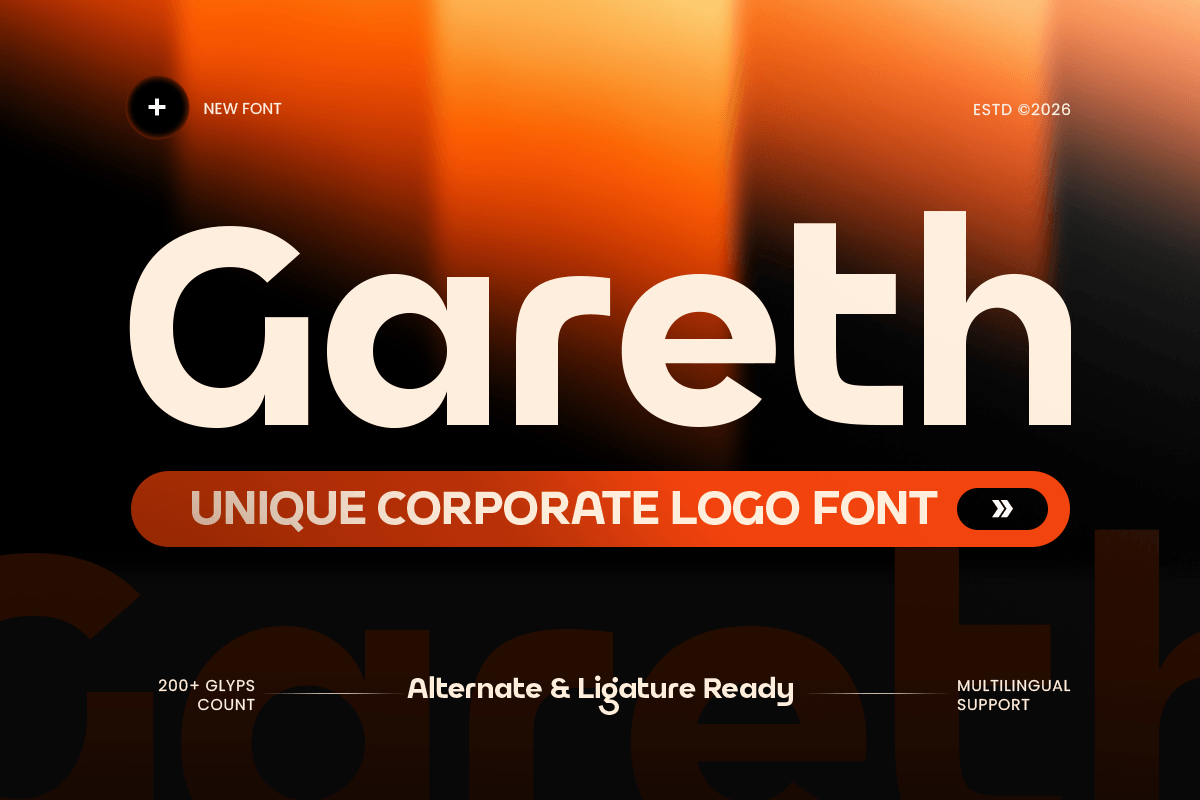
Gareth
-Corporate Logo Font
Gareth - Corporate Logo Font
Gareth is a corporate logo font designed to deliver a clean, professional, and confident visual presence. With refined letterforms, balanced proportions, and a modern business aesthetic, this typeface is ideal for brands that value clarity, credibility, and timeless style.
Perfect for corporate logos, brand identity, company profiles, business cards, packaging, editorial layouts, and professional presentations, Gareth provides a versatile foundation for sophisticated visual communication. Its polished appearance also works beautifully across websites, UI design, social media, signage, headlines, and advertising.
Whether you're developing an identity for a technology company, consulting firm, creative agency, financial brand, or modern startup, this modern corporate logo font helps create a strong and memorable impression. Gareth combines professional character with contemporary versatility, making it suitable for both digital and print projects.
Gareth – Corporate Logo Features
• Clean and professional corporate letterforms
• Modern style designed for strong brand identities
• Ideal for logos, business branding, and company profiles
• Excellent for websites, UI design, signage, and presentations
• Suitable for both digital and print projects
• OpenType features for creative typographic flexibility
Build a confident visual identity with Gareth – a professional corporate font crafted for modern branding. ✨